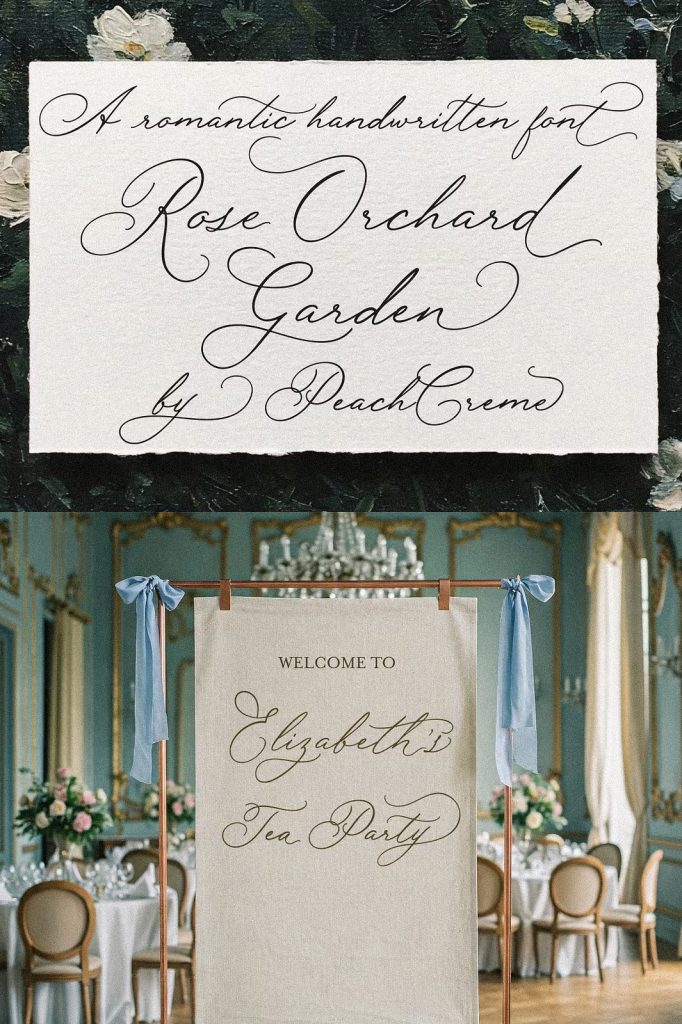
Rose Orchard Garden Font – A Romantic Handwritten Script of Timeless Elegance
Rose Orchard Garden Font is a beautifully romantic handwritten script inspired by the timeless art of traditional calligraphy. Each letter flows gracefully with long, elegant curves and delicate imperfections that make the design feel authentic, expressive, and deeply personal. Far from being overly polished, Rose Orchard Garden embraces the charm of the human hand, giving your typography a natural rhythm and emotional warmth that connects with every viewer.
This typeface captures the essence of elegance and nostalgia, bringing a soft, classic beauty to modern design. Whether you’re crafting a wedding invitation, designing a logo, or creating heartfelt stationery, Rose Orchard Garden Font delivers sophistication and soul in every stroke.
A Script That Blooms with Romantic Expression
The Rose Orchard Garden Font is inspired by the grace of handwritten letters and vintage calligraphy found in love notes and journals from generations past. Each curve was drawn to evoke a sense of tenderness and beauty, like petals swaying gently in the breeze. The result is a typeface that feels intimate and refined, perfect for projects that demand emotional depth and timeless appeal.
Its long, flowing lines mirror the elegance of brush calligraphy, while subtle irregularities add human touch and warmth. This careful balance of precision and imperfection makes Rose Orchard Garden a typeface that feels alive—inviting, delicate, and emotionally engaging.
Designed for Beauty and Versatility
While its roots lie in classic calligraphy, Rose Orchard Garden Font has been designed with modern versatility in mind. It transitions effortlessly from traditional to contemporary applications, adapting beautifully to everything from luxury branding to editorial design. Its balanced forms and graceful strokes maintain legibility while preserving a handcrafted elegance that enhances any composition.
Each character was drawn with care to create consistent flow and visual harmony. The result is a script font that looks just as stunning on digital screens as it does in print. Whether you’re creating invitations, product packaging, social media graphics, or decorative signage, Rose Orchard Garden brings sophistication and personality to every piece.
Perfect Uses for Rose Orchard Garden Font
- Wedding Invitations: Set the perfect tone for a romantic celebration with handwritten elegance.
- Branding and Logos: Add a graceful, personal touch to boutique and luxury brands.
- Greeting Cards: Express heartfelt messages with warmth and authenticity.
- Product Packaging: Give artisanal and handmade products an elegant visual identity.
- Editorial Design: Enhance titles, quotes, and pull-texts with calligraphic sophistication.
- Social Media: Create eye-catching posts and stories that radiate emotion and artistry.
Every project designed with Rose Orchard Garden gains a sense of poetic grace, making it ideal for designers seeking to blend classic charm with modern elegance.
Calligraphy-Inspired Craftsmanship
The Rose Orchard Garden Font was born from a deep admiration for traditional calligraphy. Each letterform captures the sweeping motions and pressure variations of the pen, resulting in beautifully expressive strokes that echo authentic handwriting. The graceful upstrokes and gentle downstrokes give each line life, rhythm, and soul.
Its organic imperfections are not flaws but features—intentional design choices that enhance the font’s natural beauty. These subtle variations make Rose Orchard Garden feel as though it was written just for you, adding intimacy and personality to any design.
Features That Bring Artistry to Every Design
Beyond its captivating style, Rose Orchard Garden Font includes features that make it both beautiful and practical. Every curve was refined to maintain balance and harmony, ensuring readability while preserving the handwritten aesthetic. It’s a font that looks as graceful in large headlines as it does in small text.
- Handwritten Authenticity: Every letter is designed to mimic real calligraphy for a personal, artistic touch.
- Elegant Flow: Natural connections between letters create smooth, continuous motion.
- High Legibility: Maintains clarity across various sizes and applications.
- Delicate Imperfections: Gentle irregularities add charm and realism.
- Versatile Design: Suitable for digital, print, and luxury creative projects.
These elements work together to make Rose Orchard Garden a powerful creative tool for designers who want their work to feel organic, emotional, and beautifully crafted.
The Perfect Marriage of Classic and Modern Design
Rose Orchard Garden Font effortlessly blends vintage inspiration with contemporary sensibilities. While it celebrates the art of handwriting and old-world charm, it also embraces modern minimalism. This duality makes it an ideal choice for creatives seeking a typeface that feels both nostalgic and current.
Conclusion
Rose Orchard Garden Font is more than a typeface—it’s an experience. Rooted in the artistry of calligraphy, it combines flowing lines, subtle imperfections, and heartfelt expression to create designs that speak with elegance and sincerity. Perfect for weddings, branding, packaging, and creative projects, it brings warmth and character to every composition. Let Rose Orchard Garden add its romantic charm and classic grace to your next masterpiece—because timeless beauty never goes out of style.